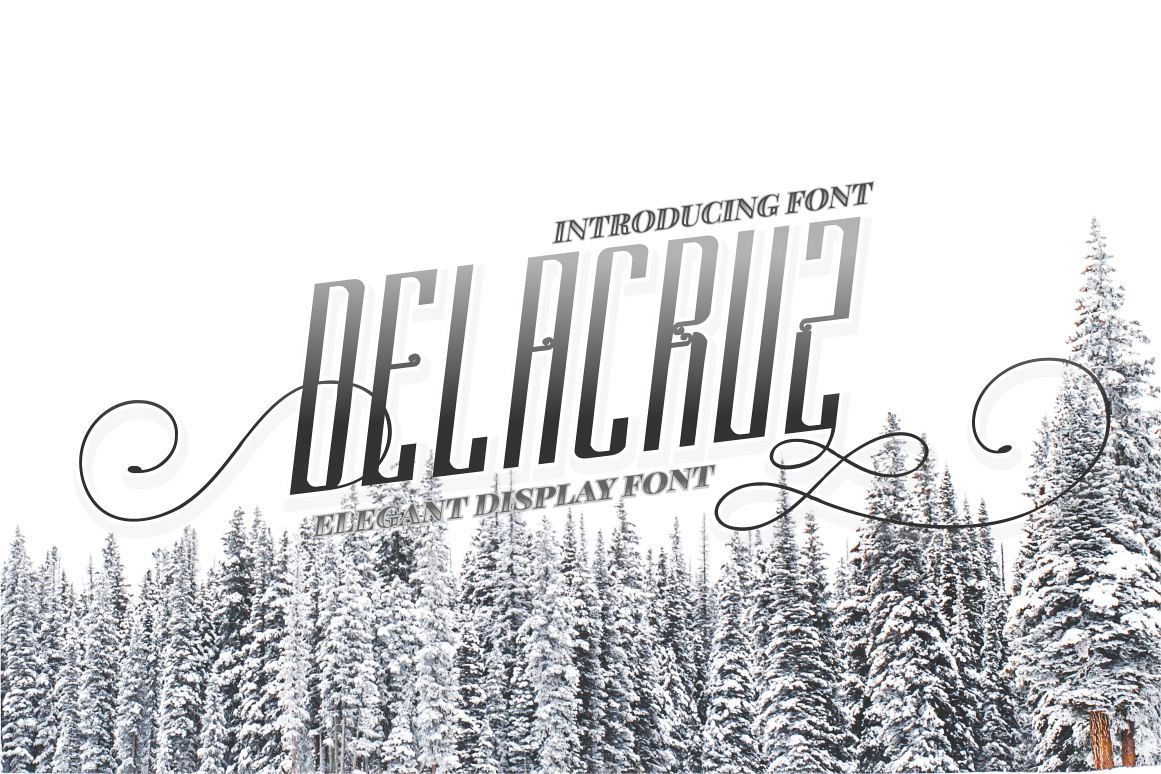
DELACRUZ TYPEFACE
Introducing DELACRUZ - a Elegant Display Typeface.
DELACRUZ is great for any kind of display purpose from logos, Tshirt, label, apparel, quote, handwritten quotes, product packaging, tittle header, poster, merchandise, social media, labels, branding & greeting cards.
DELACRUZ has many opentype features like ligature, alternate, swash and also support multi language.
- - Uppercase
- - Lowercase
- - Alternate
- - Number, Punctuation & Symbols
- - Multilanguage Support.